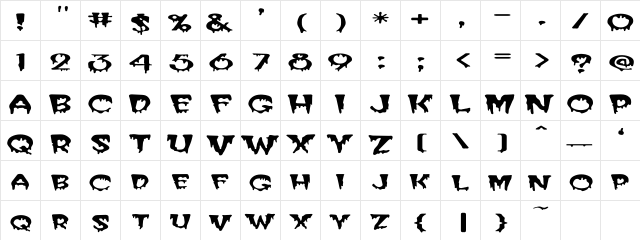
PostCryptExt Regular
Design Context for PostCryptExt
PostCryptExt is a composed and adaptable typeface that performs quietly and consistently across a wide range of design contexts.